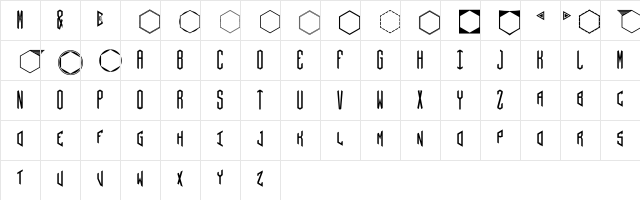
Complete Hex monograms glyph index. Displaying only characters natively supported by Hex monograms font.
Hex uses fixed-width spacing throughout, giving it the structured, systematic character associated with coding environments and technical documentation.